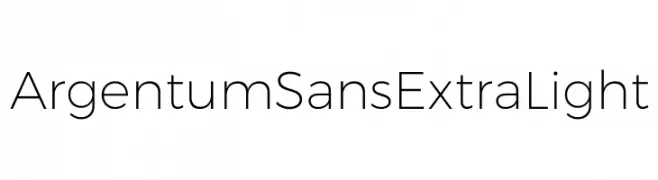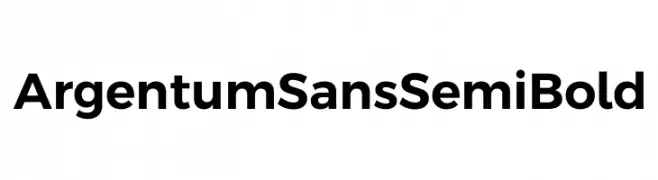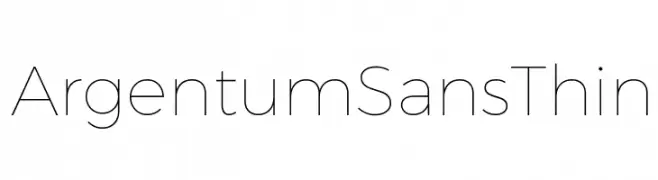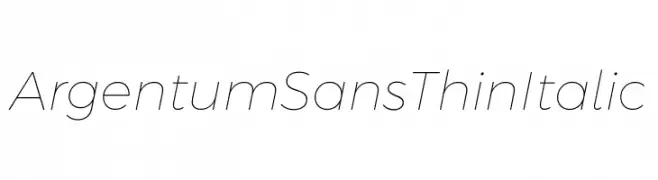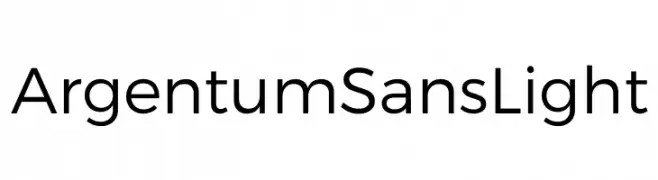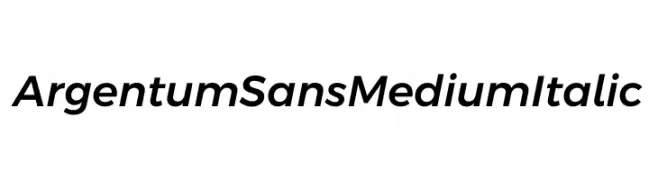
A bold, italicized sans-serif font with a modern and dynamic style.
A bold, modern sans-serif font with strong, uniform strokes and excellent legibility.
A clean, modern sans-serif typeface with uniform stroke widths and balanced design.
A modern sans-serif font with a semi-bold weight, offering clarity and professionalism.
A thin, modern sans-serif font with a clean and minimalist design.
A bold, modern sans-serif font with strong geometric shapes.
A modern, thin, italic sans-serif font with a sleek and elegant style.
A bold, italic, modern sans-serif font with a clean and dynamic style.
A modern, light sans-serif font with clean lines and excellent readability.
A modern, medium-weight sans-serif italic font with clean lines and a slightly condensed form.